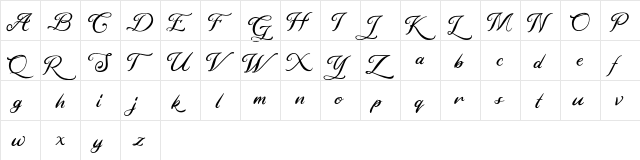
Black Rainbow Script FREE Regular
Design Context for Black Rainbow Script FREE Typeface
Black Rainbow Script FREE brings a calligraphic fluidity to the page — its connecting strokes and expressive curves give it an unmistakably human quality.
Font Pairing: Combine Black Rainbow Script FREE with a simple geometric sans for maximum contrast — the tension between flowing curves and clean structure is a classic typographic pairing.
Pro Tip: Pair Black Rainbow Script FREE with a clean sans-serif for supporting text. The contrast between fluid script and geometric structure creates an elegant typographic hierarchy.